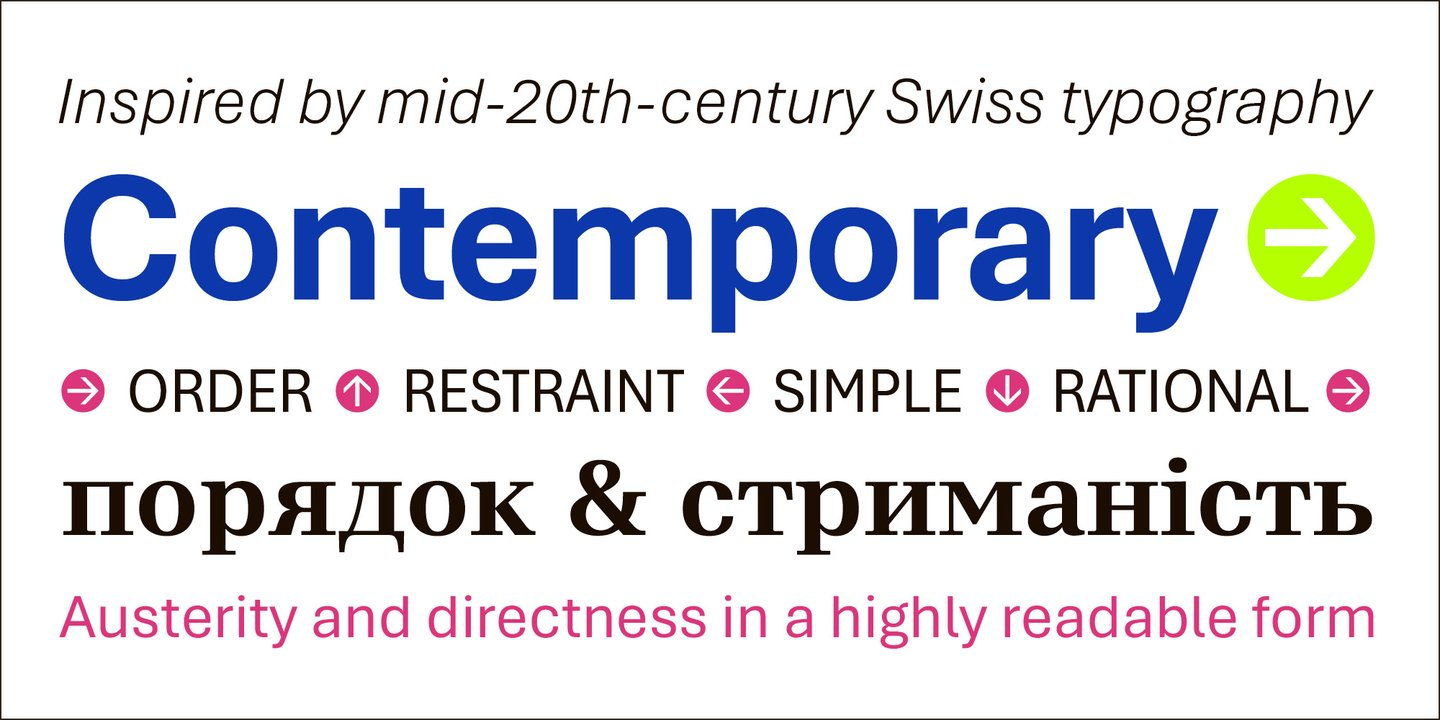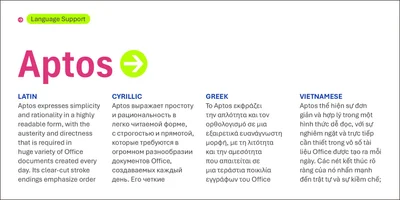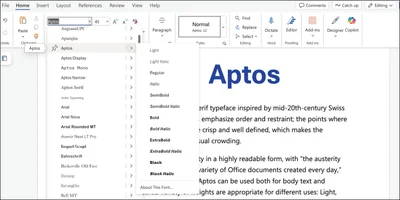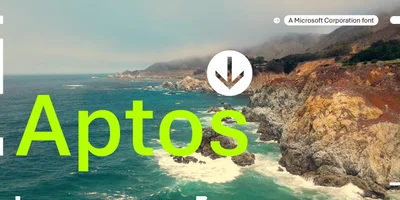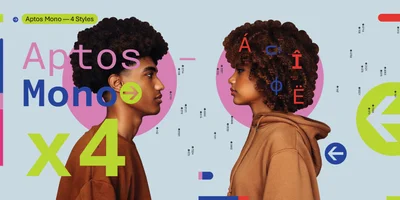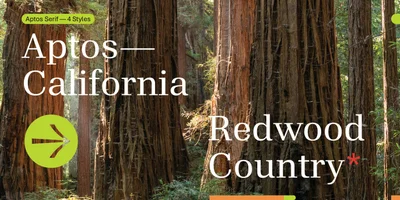
Aptos vs Verdana
Aptos and Verdana are both sans-serif typefaces sharing a humanist foundation. Where Aptos leans neo-grotesque, Verdana brings wide. Compare which suits your Documents project.
Design overlap:60%
Aptos
HumanistNeo-Grotesque
Readable
Web Optimized
Verdana
HumanistWide
Readable
Web Optimized
| Feature | Aptos | Verdana |
| Variable Font | Yes | No |
| Weights | Variable | Multiple |
| Language Support | latin, latin-extended, cyrillic, greek | latin, latin-extended, cyrillic, greek |
| Source | Microsoft | Microsoft |
Recommended: Aptos
- neo-grotesque design character
- Suited for Corporate and Presentations
- From microsoft
- Available as a variable font
Consider: Verdana
- wide design character
- Suited for Email
- From microsoft